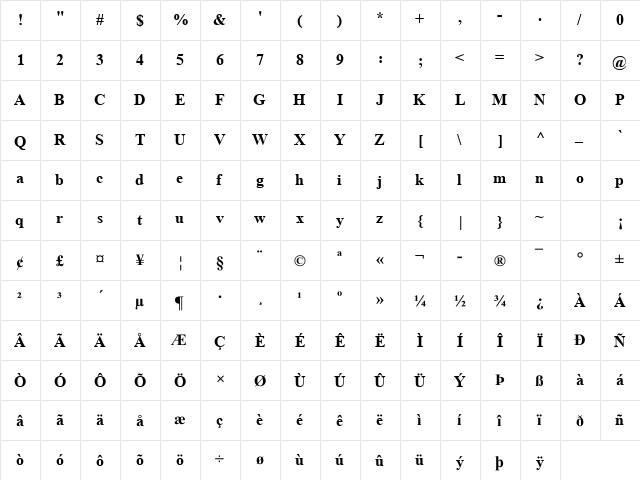
Angsana New Bold
Design Context for Angsana New Typeface
Angsana New takes a measured approach to typography — its balanced proportions and neutral character make it a reliable workhorse for both digital and print work. The heavy weight commands attention and anchors typographic hierarchies.